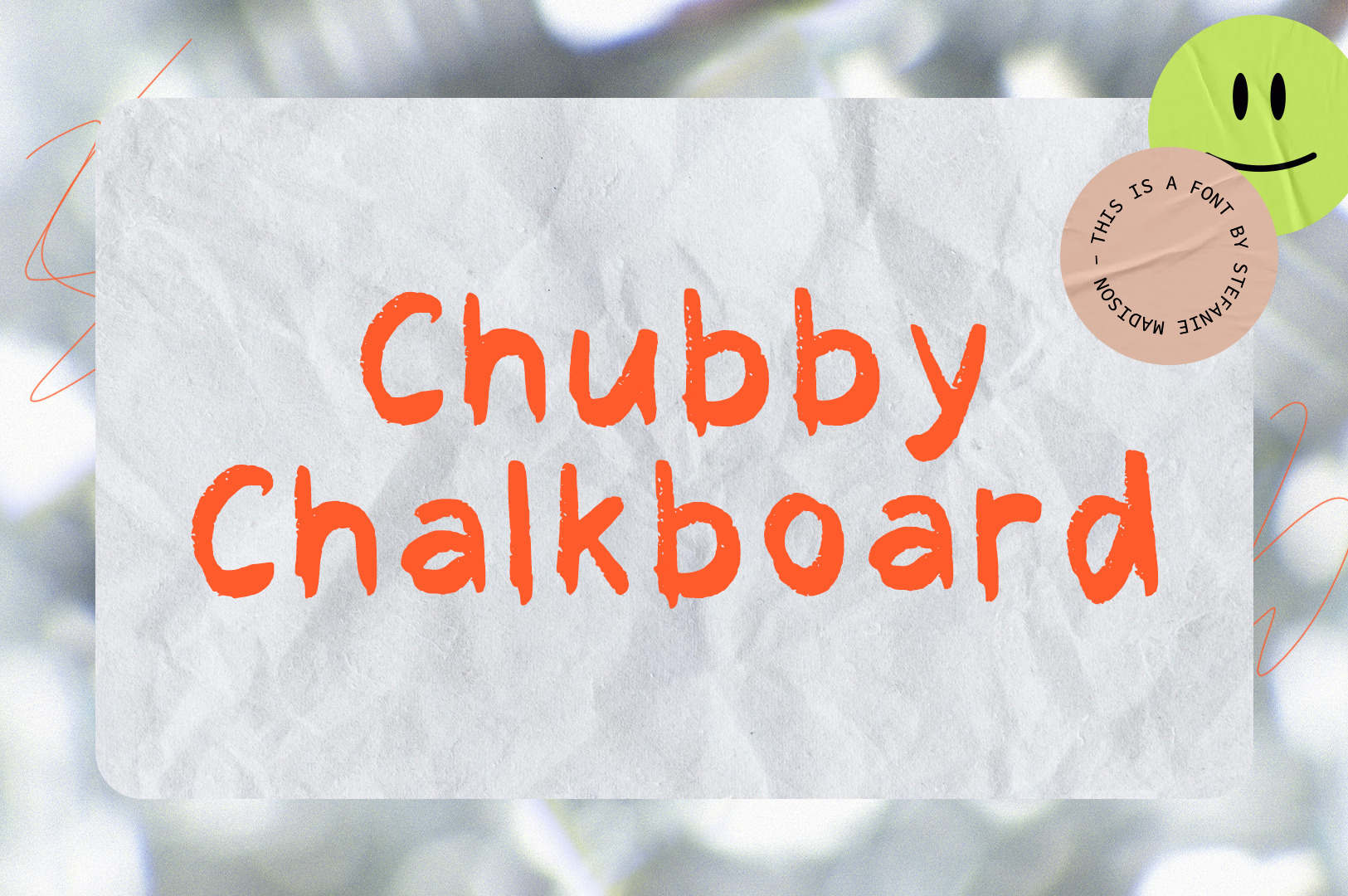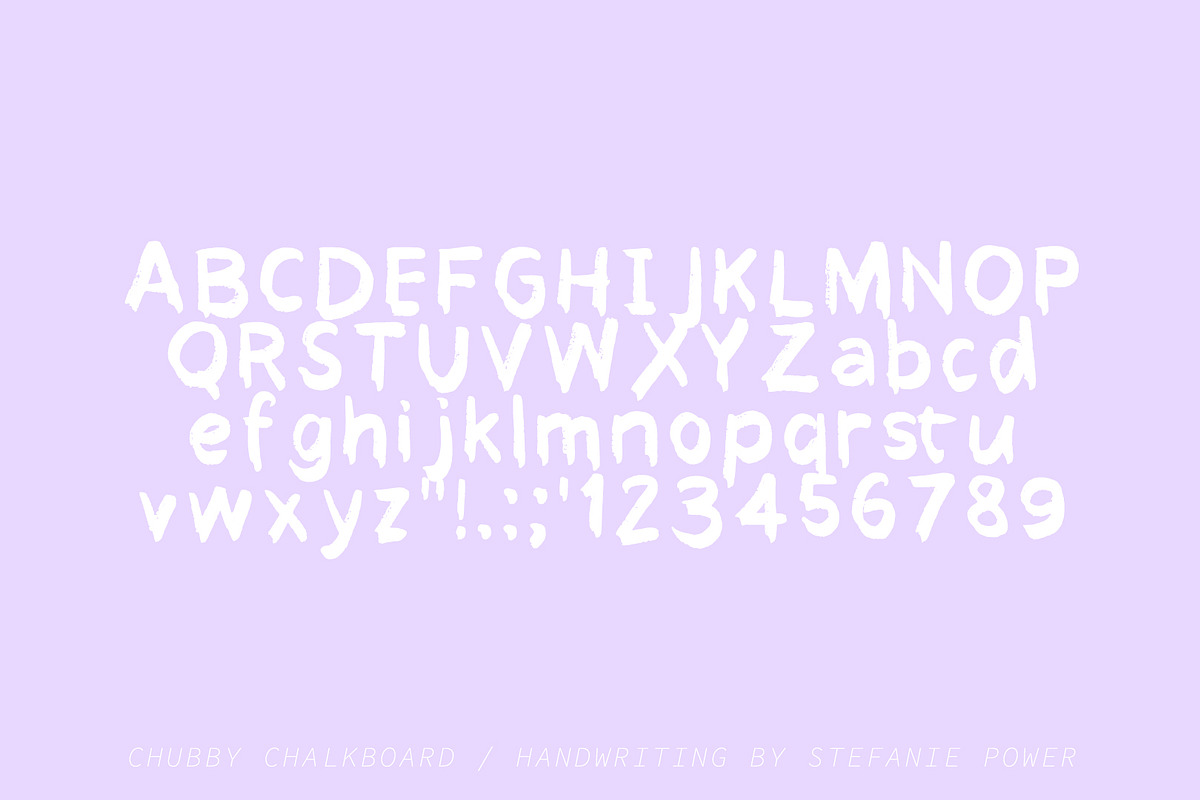
Chubby Chalkboard | Handwritten Font
Introducing 'Chubby Chalkboard' - a chunky handwritten font.
Chubby Chalkboard • A chunky handwritten font containing uppercase characters and a range of punctuation, ligatures and numbers.